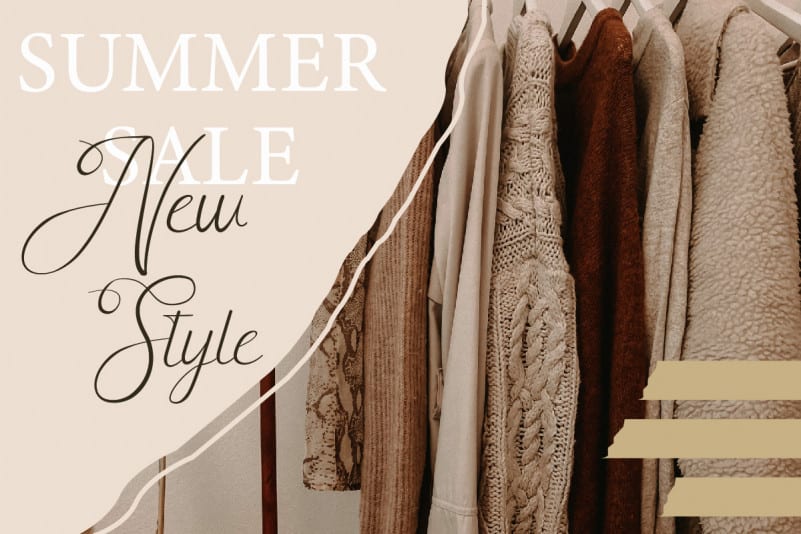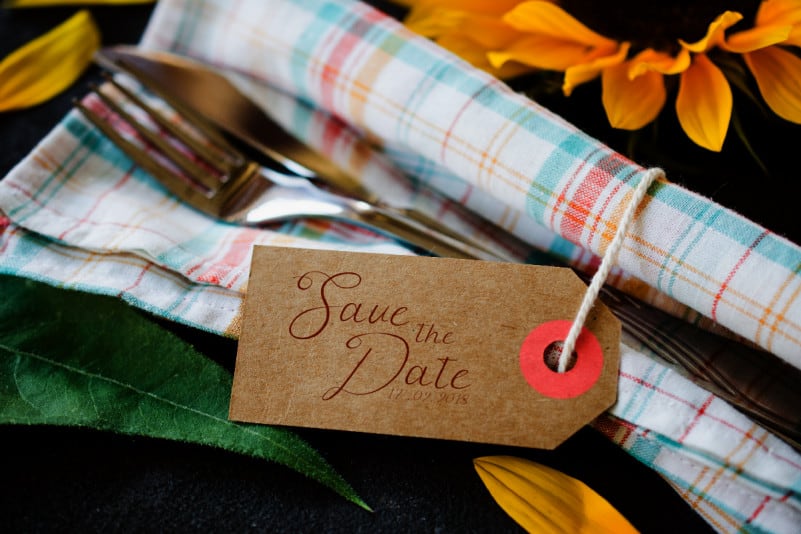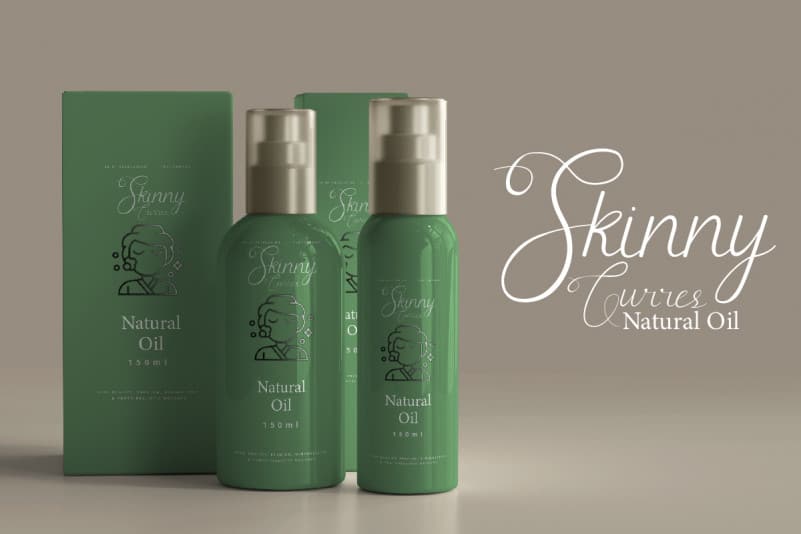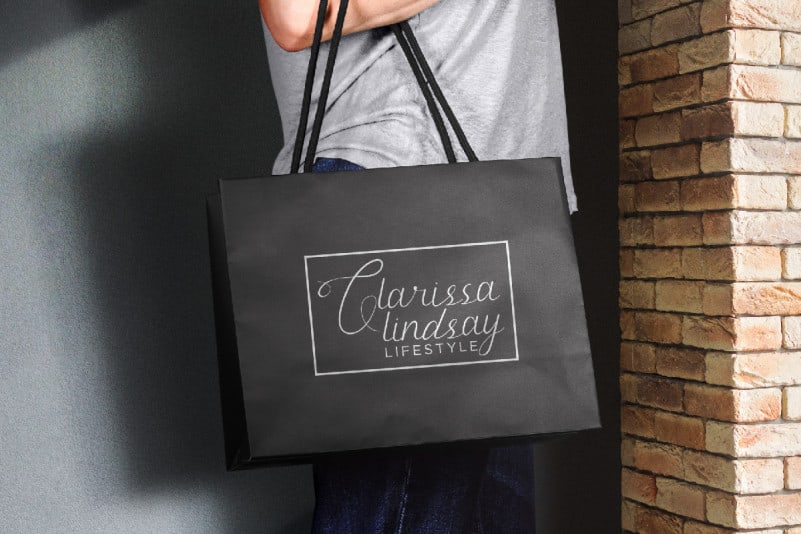
Fortification Calligraphy Font
Fortification Calligraphy Font is a unique calligraphy handwriting font with great characters, alternatives and ligatures. This font will be awesome for wedding, florist, sales marketing, professional, dentist, real estate, music, videography etc This font is crafted carefully in every its single letter so we can make sure it has great looking, inspired by the handwriting of Italian women and ancient manuscripts. Carefully designed to work together in harmony and This one should make your designs instantly professional and jaw-dropping!
Fortification Calligraphy Font includes full set of Uppercase and Lowercase Basic Characters, Numerals and Punctuation. Also it contains ligatures to make it flowless characters to perfectly make awesome look that add more aesthetic fonts to perfect your extraordinary project.